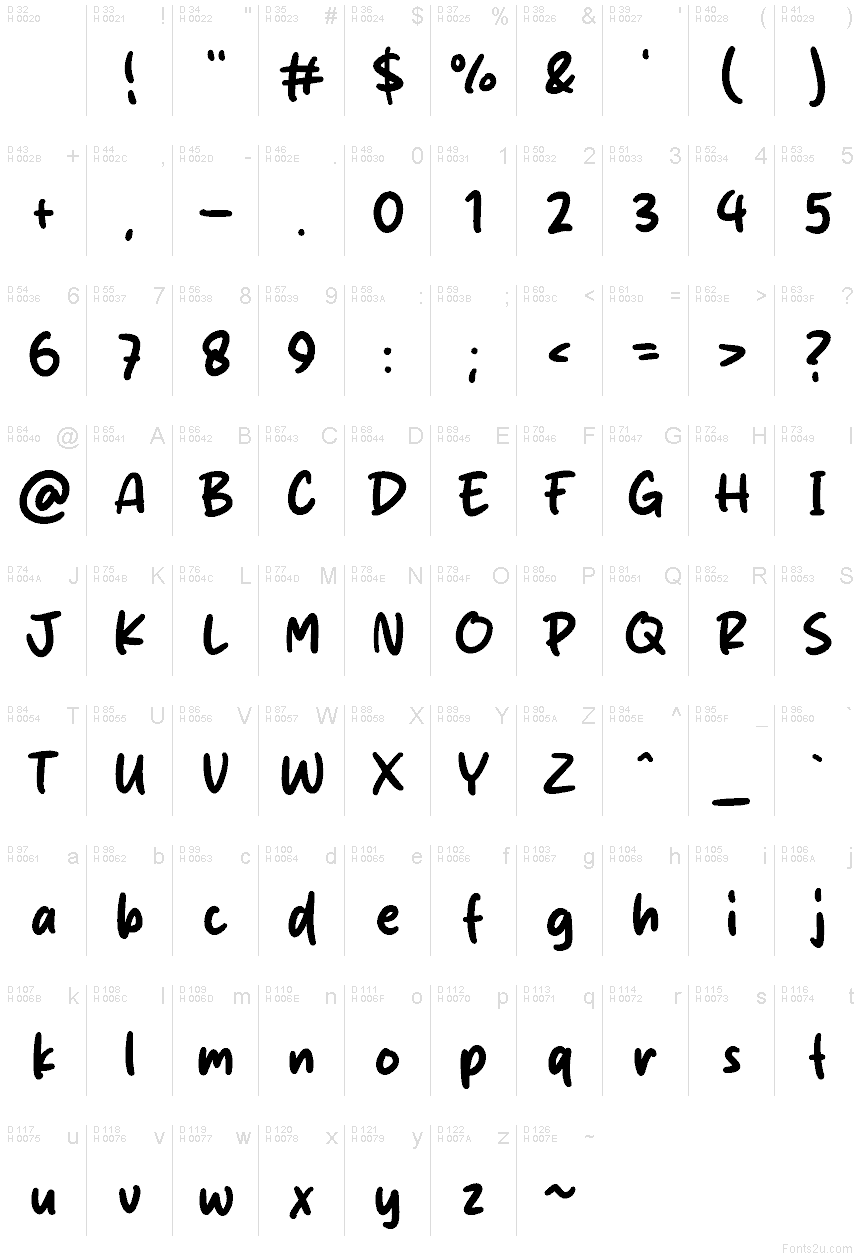
Miso Fish
Miso Fish font by MJType is a free brush font that captures the feel of thick, inky marker strokes on a fresh page. The letters are rounded, slightly bouncy, and pleasantly chunky, like hand-scrawled notes on a café chalkboard or a kid’s sketchbook. It has just enough wobble to feel human and warm, but stays clean and legible when you scale it up for bold headlines or titles.
Using Miso Fish, this free font shines on food packaging, kids’ books, playful logos, posters, social media graphics, and DIY craft prints. Its casual rhythm and soft curves instantly relax a layout and make messages feel friendly and approachable. For balance, pair Miso Fish with a simple, neutral sans serif in smaller text, letting the brush script handle the loud, fun moments up top.